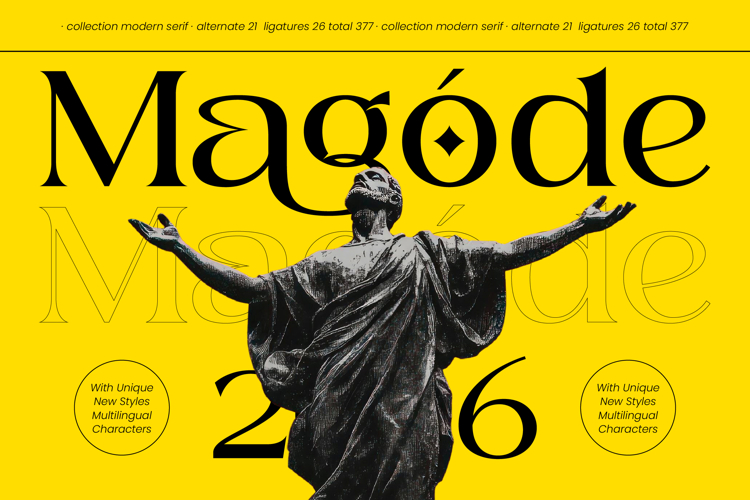
Magode - Collection Modern Serif
Elevate your design projects with a touch of timeless sophistication and unparalleled grace. Magode - Collection Modern Serif is a masterpiece of sophisticated typography, blending the classic foundations of traditional serifs with a bold, modern serif aesthetic. Its striking high-contrast strokes and refined silhouettes command attention, ensuring that your headlines and titles exude an aura of premium quality and professional polish.
Precision meets artistry in every curve and glyph, offering designers a vast playground of creative possibilities. By incorporating a rich array of stylistic alternates and unique ligatures, Magode - Collection Modern Serif allows for bespoke typographic compositions that feel custom-made for any high-end brand. This typeface is not just a tool but a definitive statement piece, designed to provide maximum visual impact in both digital and print mediums.